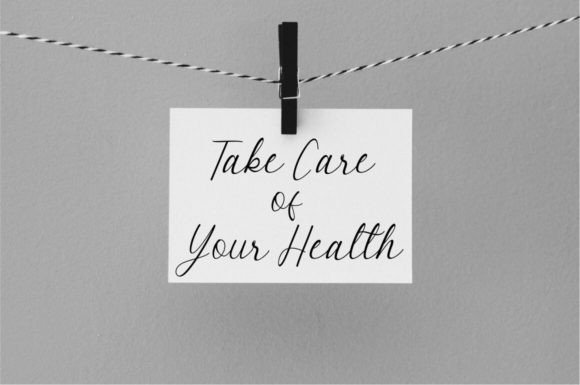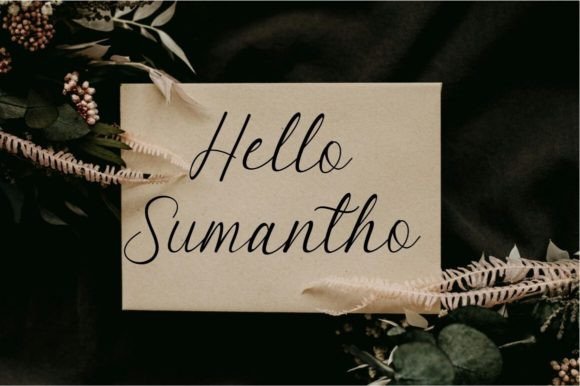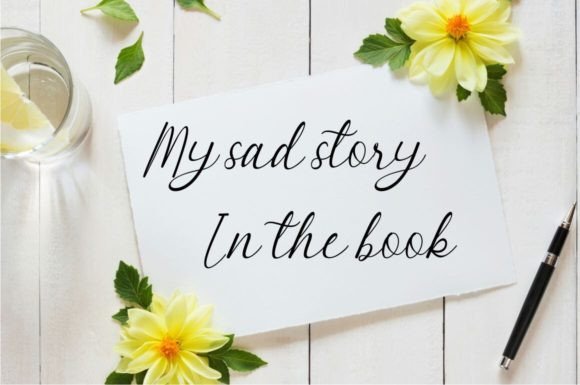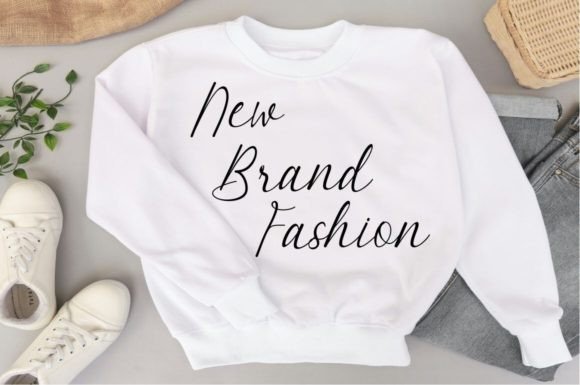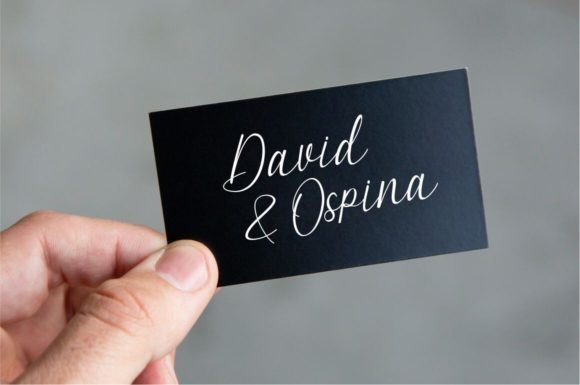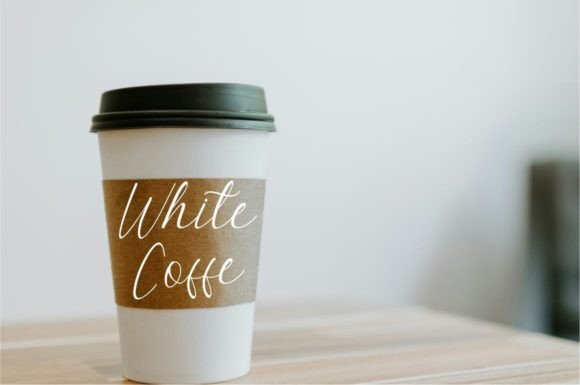
Introducing Gradientline Font: Elevate Your Designs with Elegance and Flair
In the world of typography, fonts play a crucial role in conveying the tone and personality of a brand, project, or creative endeavor. For designers and crafters seeking a modern script font that embodies both sophistication and playfulness, Gradientline is an exceptional choice. This stunning font is designed to make a statement, offering a perfect blend of elegance and contemporary style that can elevate any design project.
The Essence of Gradientline Font
Gradientline is a modern script font that boasts fluid, hand-drawn strokes and meticulously designed curves. Its unique design ensures a dynamic and graceful appearance, making it an ideal choice for a wide range of applications, from branding and invitations to artistic projects. The font’s creator aimed to produce a typeface that not only stands out but also maintains a sense of timeless beauty, making Gradientline a versatile addition to any designer’s toolkit.
Key Features of Gradientline Font
- Fluid, Hand-Drawn Strokes: Gradientline’s strokes are carefully crafted to mimic the natural flow of handwriting, giving the font a personal and approachable feel.
- Meticulously Designed Curves: The font’s curves are designed to perfection, ensuring a smooth and elegant appearance that adds sophistication to any design.
- Perfect Balance of Sophistication and Playfulness: Gradientline strikes an ideal balance between elegance and playfulness, making it suitable for a wide range of projects, from formal branding to creative artistic endeavors.
- Seamless Lines: The font features seamless lines that contribute to its refined aesthetics, ensuring a cohesive and polished appearance in any design.
Applications of Gradientline Font
Gradientline’s versatility makes it an excellent choice for various design projects, including:
- Branding: Use Gradientline to create a memorable brand identity that exudes elegance and sophistication.
- Invitations: Add a touch of luxury and refinement to your invitations, making them perfect for special occasions.
- Artistic Projects: Gradientline’s creative flair makes it an excellent choice for artistic projects, such as illustrations, posters, and more.
Why Choose Gradientline Font?
With the abundance of fonts available, Gradientline stands out for several reasons:
- Unique Design: Gradientline’s distinctive design ensures that your projects will have a unique and recognizable appearance.
- Timeless Beauty: The font’s classic elegance ensures that it will remain relevant and stylish for years to come.
- Versatility: Gradientline’s adaptability makes it suitable for a wide range of design projects, from digital applications to print materials.
Tips for Using Gradientline Font Effectively
To make the most of Gradientline, consider the following tips:
- Pair with Complementary Fonts: Combine Gradientline with complementary fonts to create visual interest and hierarchy in your designs.
- Experiment with Colors: Take advantage of Gradientline’s versatility by experimenting with different colors and gradients.
- Pay Attention to Spacing: Ensure that your text has sufficient spacing to maintain readability and allow Gradientline’s elegant strokes to shine.
Gradientline font is a stunning modern script font that offers a perfect blend of elegance, sophistication, and playfulness. Its fluid, hand-drawn strokes, meticulously designed curves, and seamless lines make it an exceptional choice for designers and crafters seeking a versatile and refined typeface. Whether you’re working on branding, invitations, artistic projects, or any other design endeavor, Gradientline is sure to elevate your creations and leave a lasting impression.